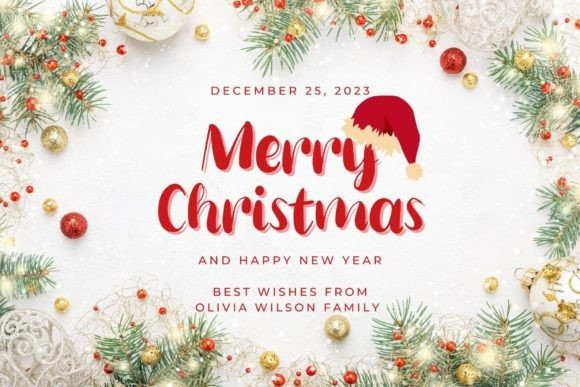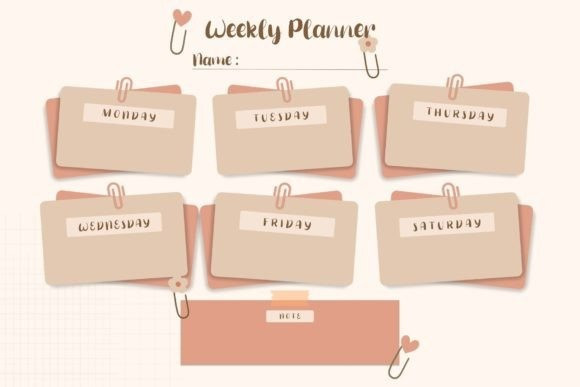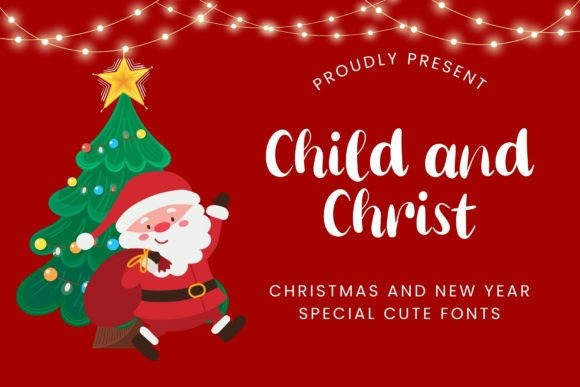
Child And Christ Font
Child And Christ Font is a cute, unique, and friendly display font. It has a modern yet whimsical style and will undoubtedly immerse your designs into a magical world. This font is perfect for various Christmas and New Year design purposes.